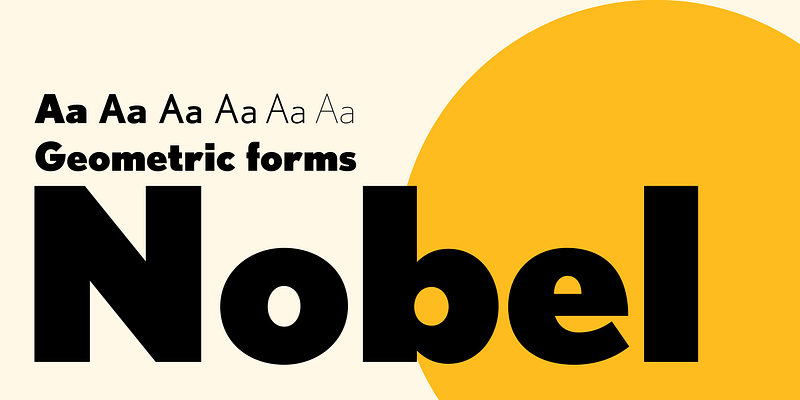
Nobel offers personal variations on strict Bauhaus geometry. In 1929, only two years after the Futura release, Sjoerd Hendrik de Roos at Amsterdam Typefoundry explored alternative character sets to enliven basic geometric forms and produced a best-selling typeface in Nobel. Font Bureau’s Nobel series was designed by Tobias Frere-Jones, who fondly views Nobel as “Futura cooked in dirty pots and pans.” The Extra Lights were added by Cyrus Highsmith and Dyana Weissman.